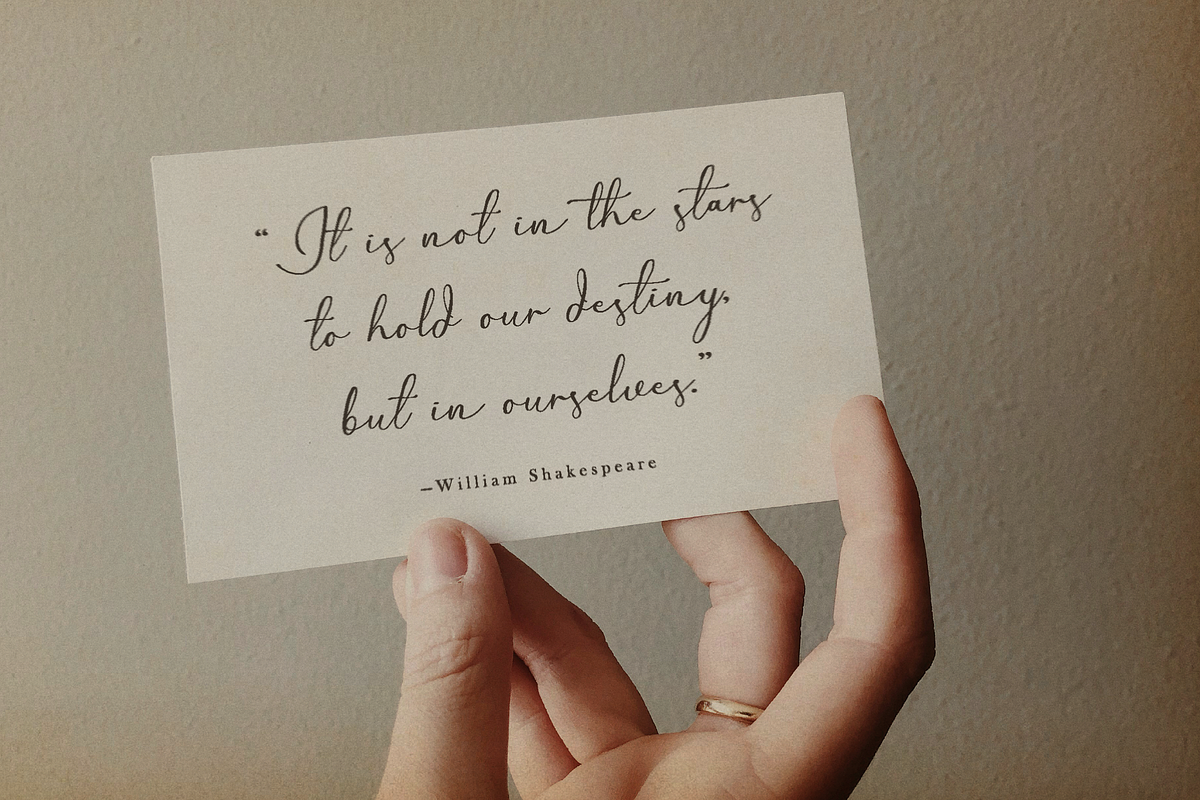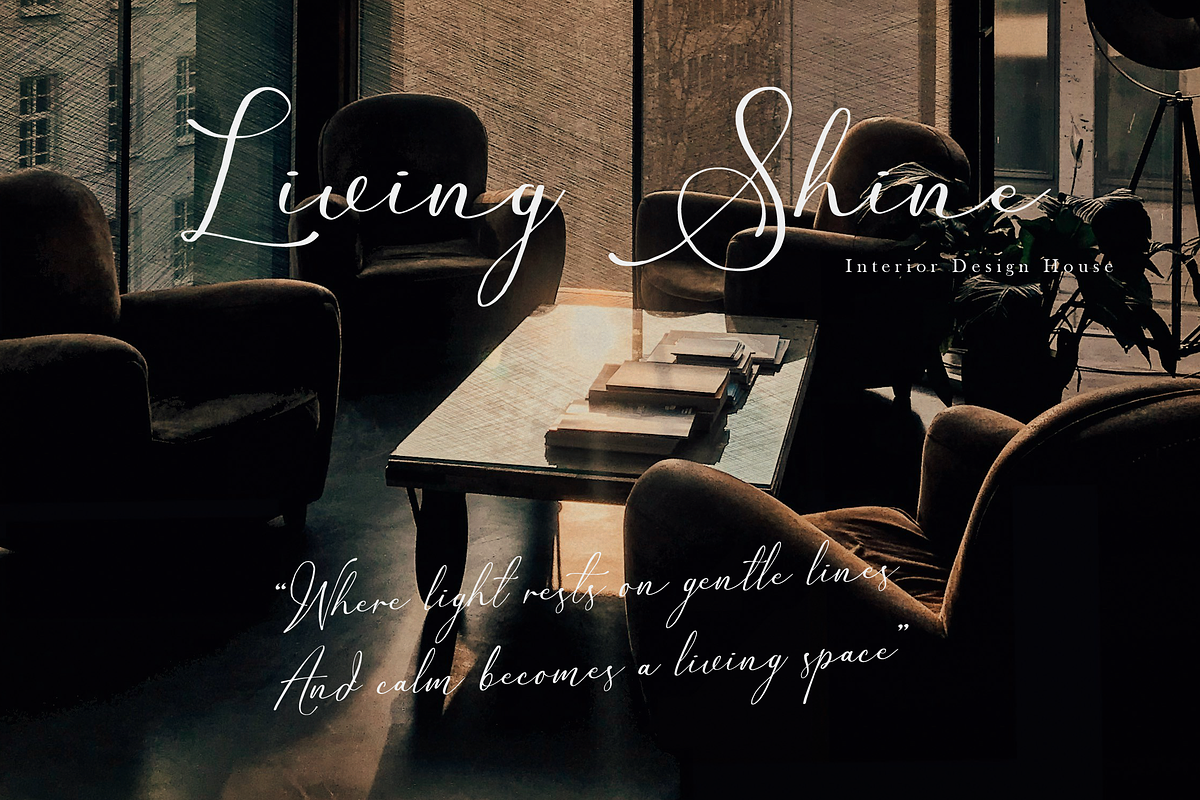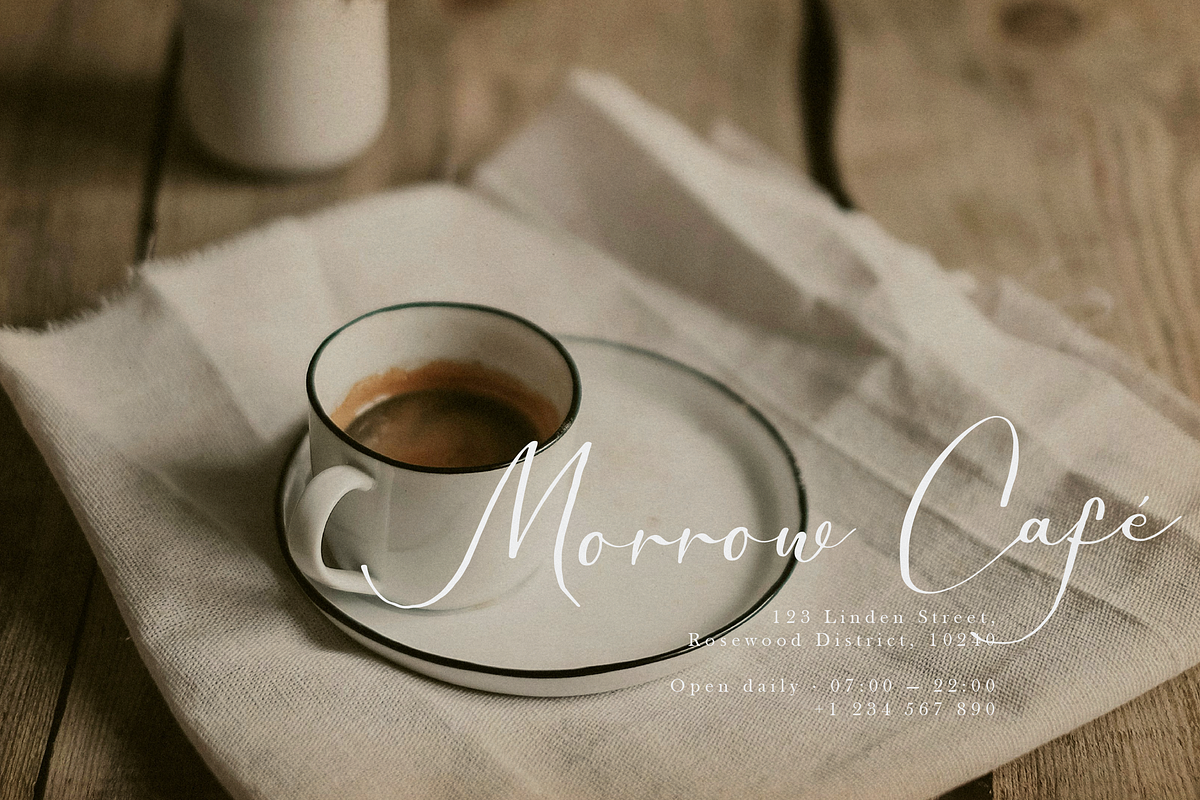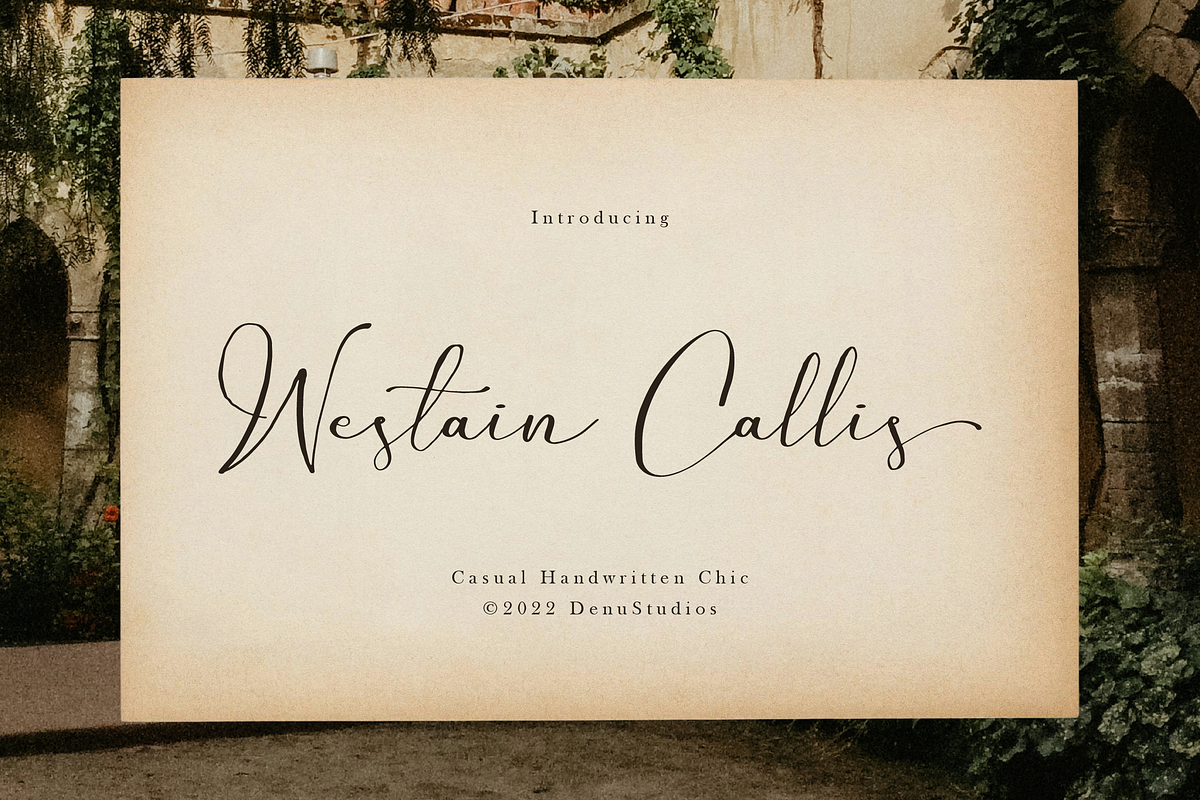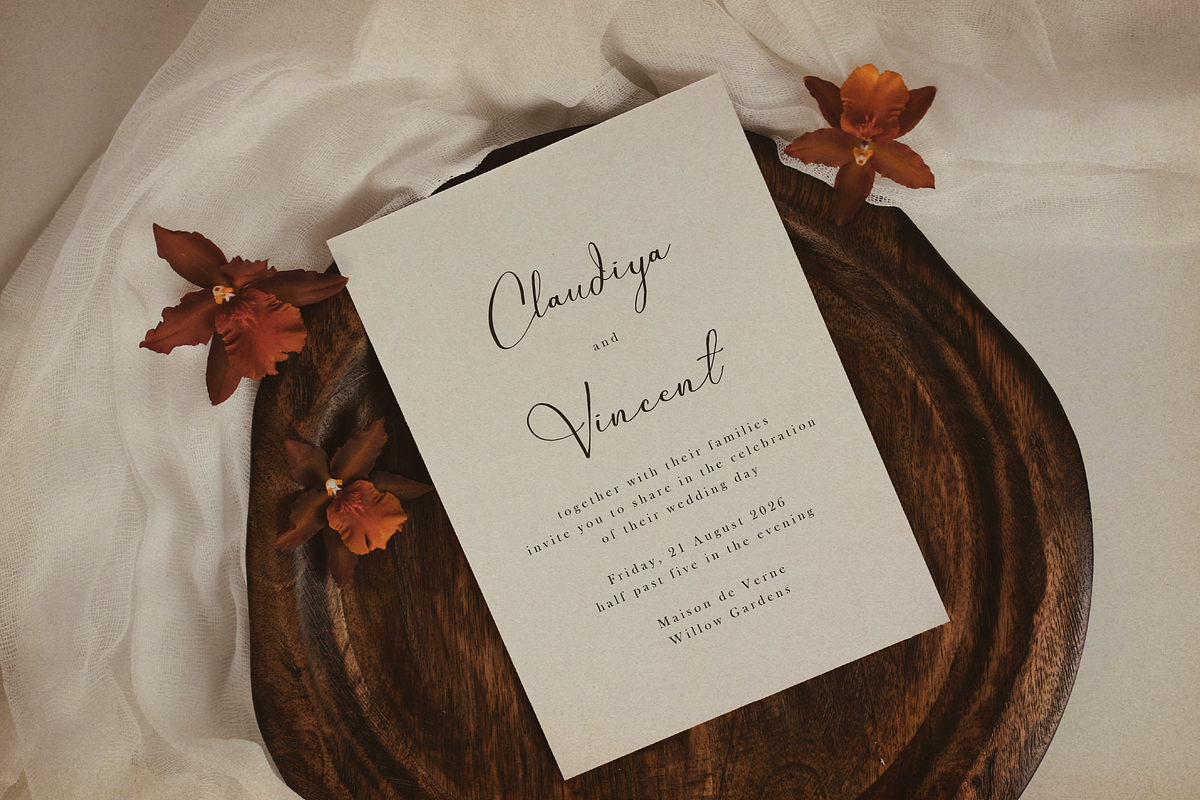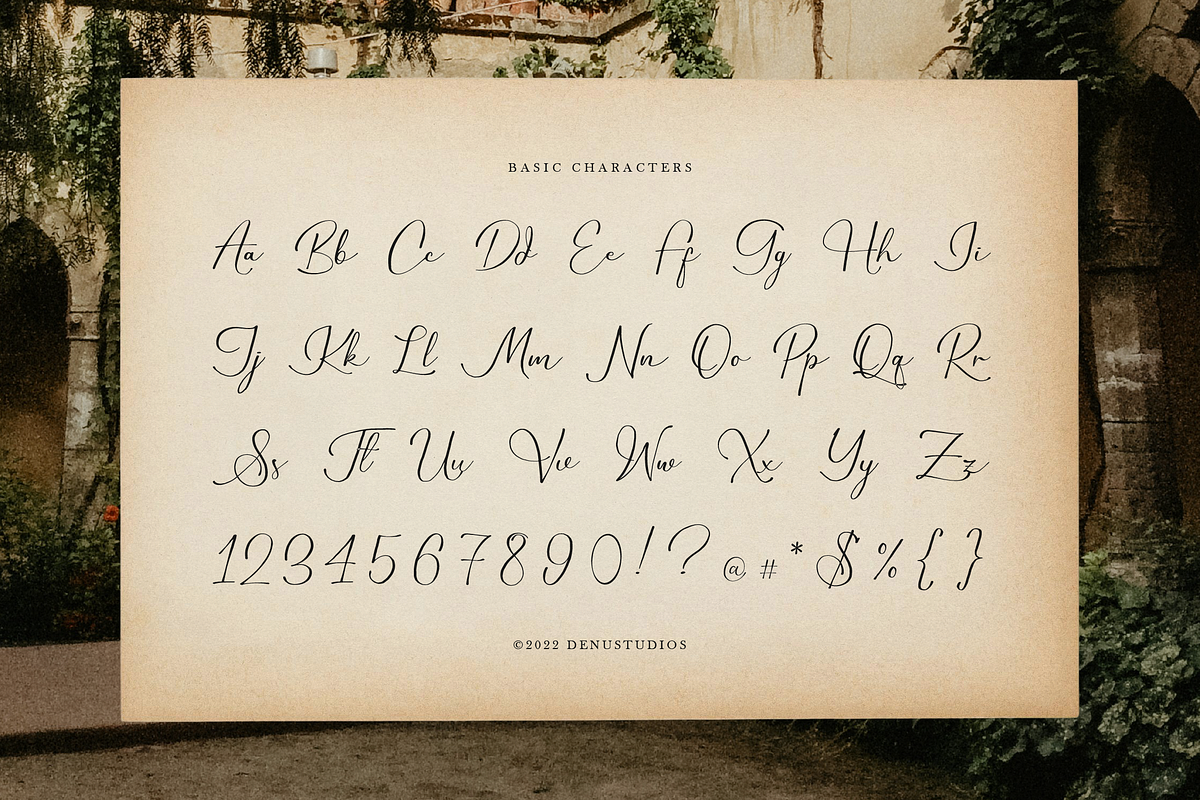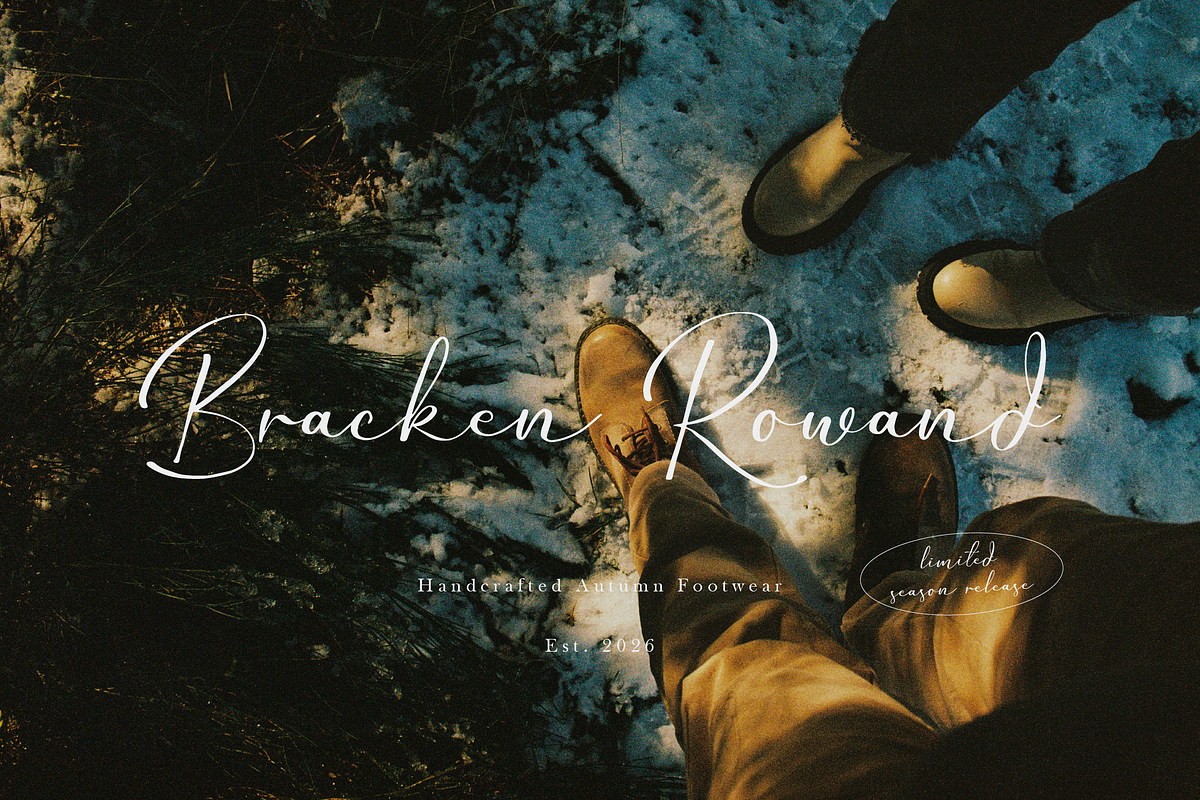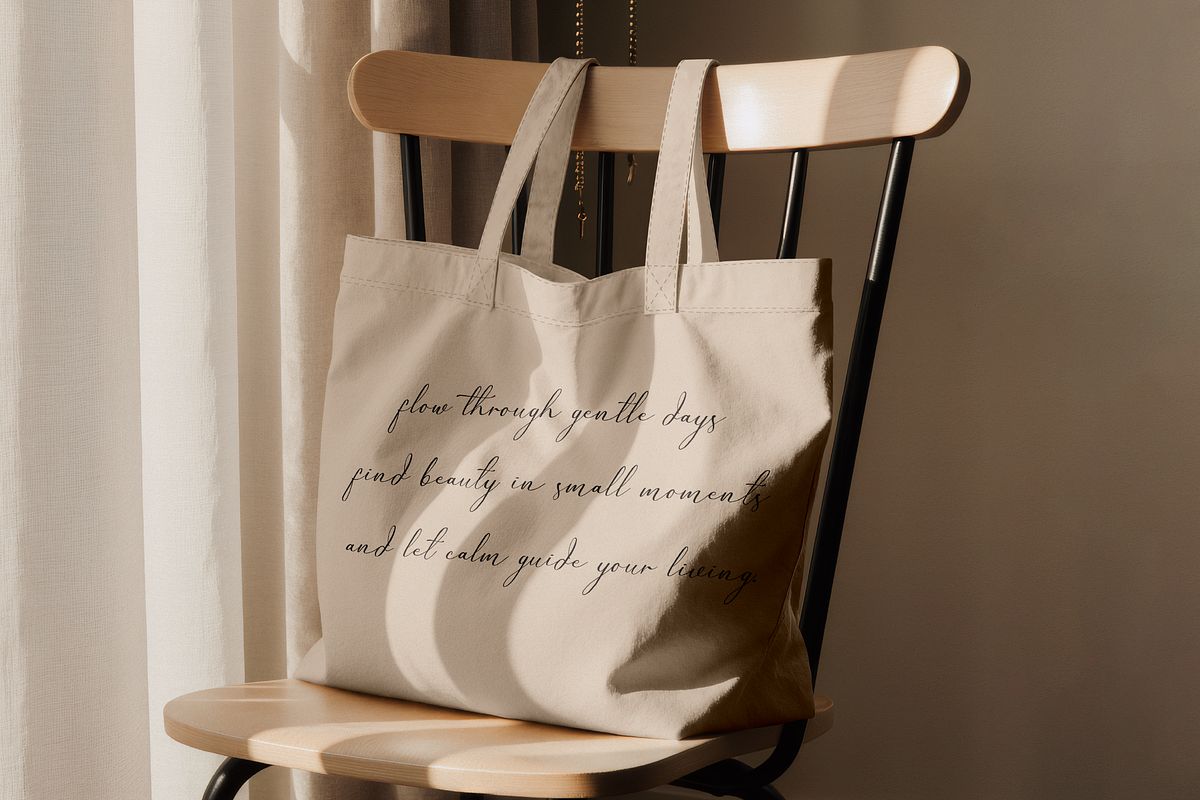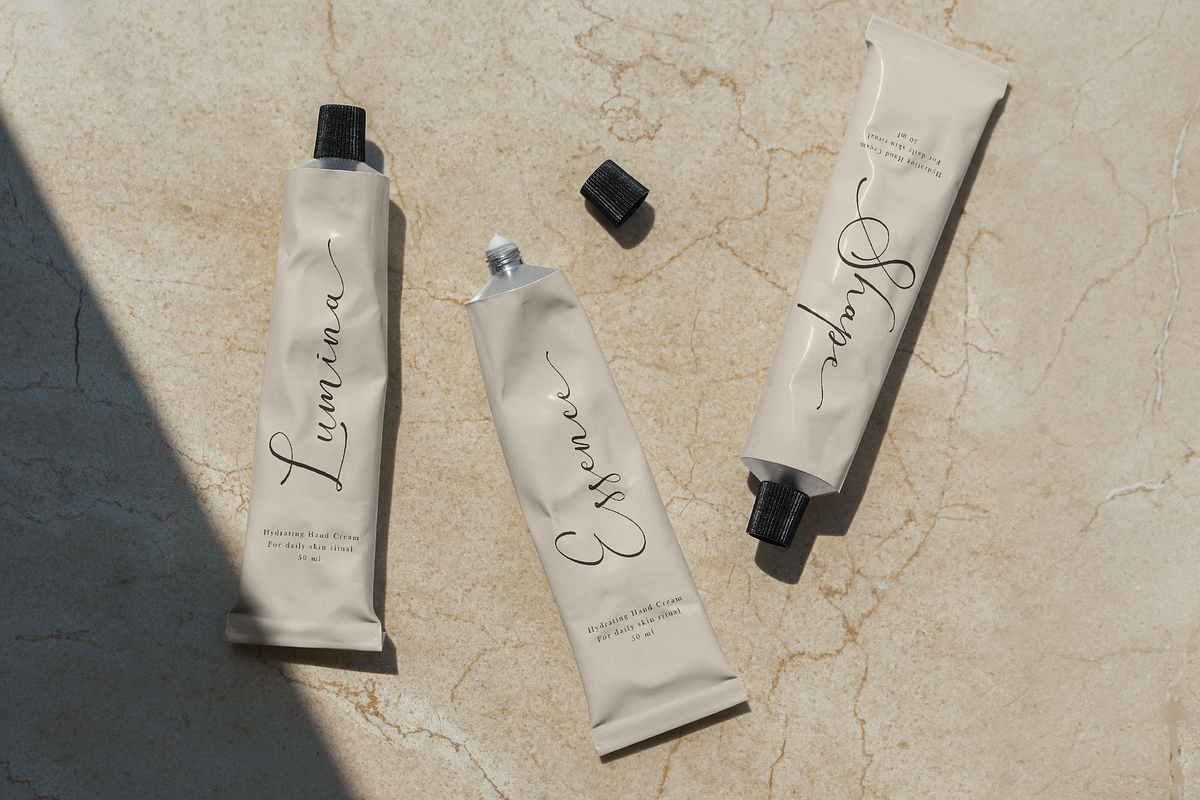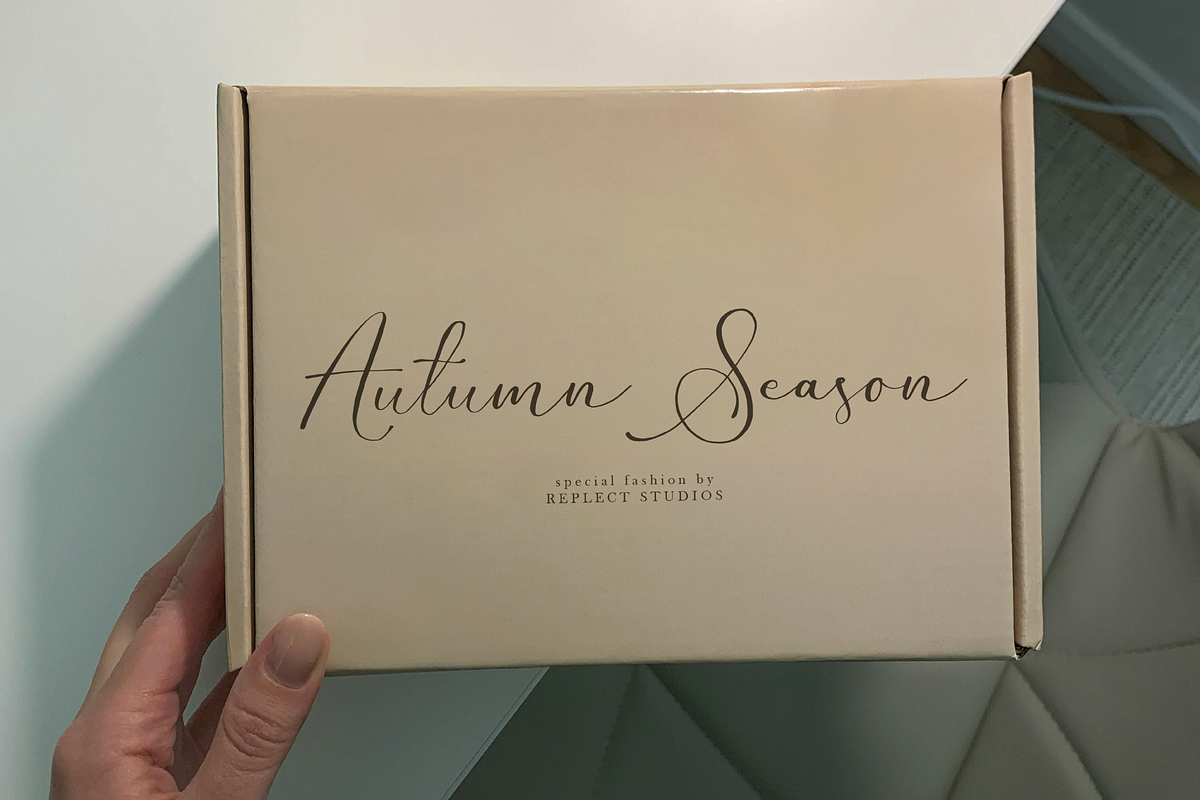
Westain Callis | Casual Handwritten
Westain Callis | Casual Handwritten, from Denustudios, suitable for any projects such as: logos, branding projects, homeware designs, product packaging, mugs, quotes, posters, shopping bags, t-shirts, book covers, name card, invitation cards, greeting cards, label, photography, watermark, special events, and all your other lovely projects that need a Script taste.